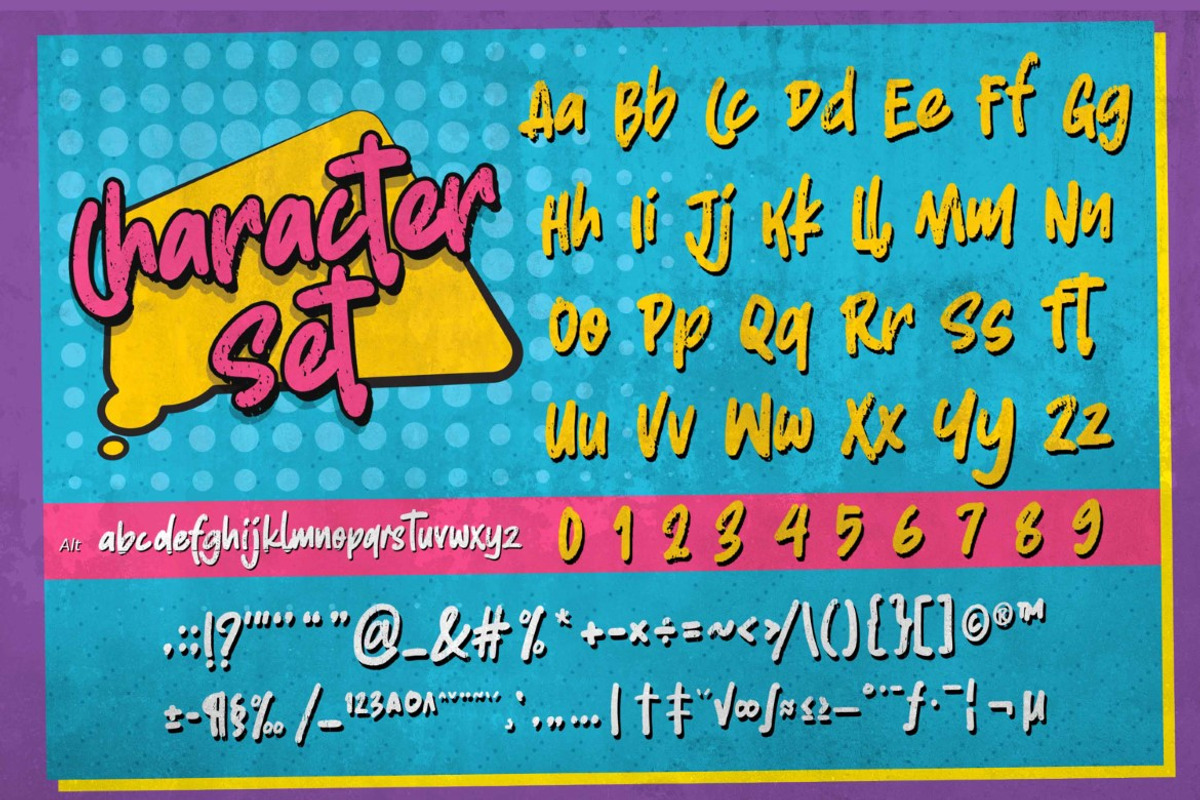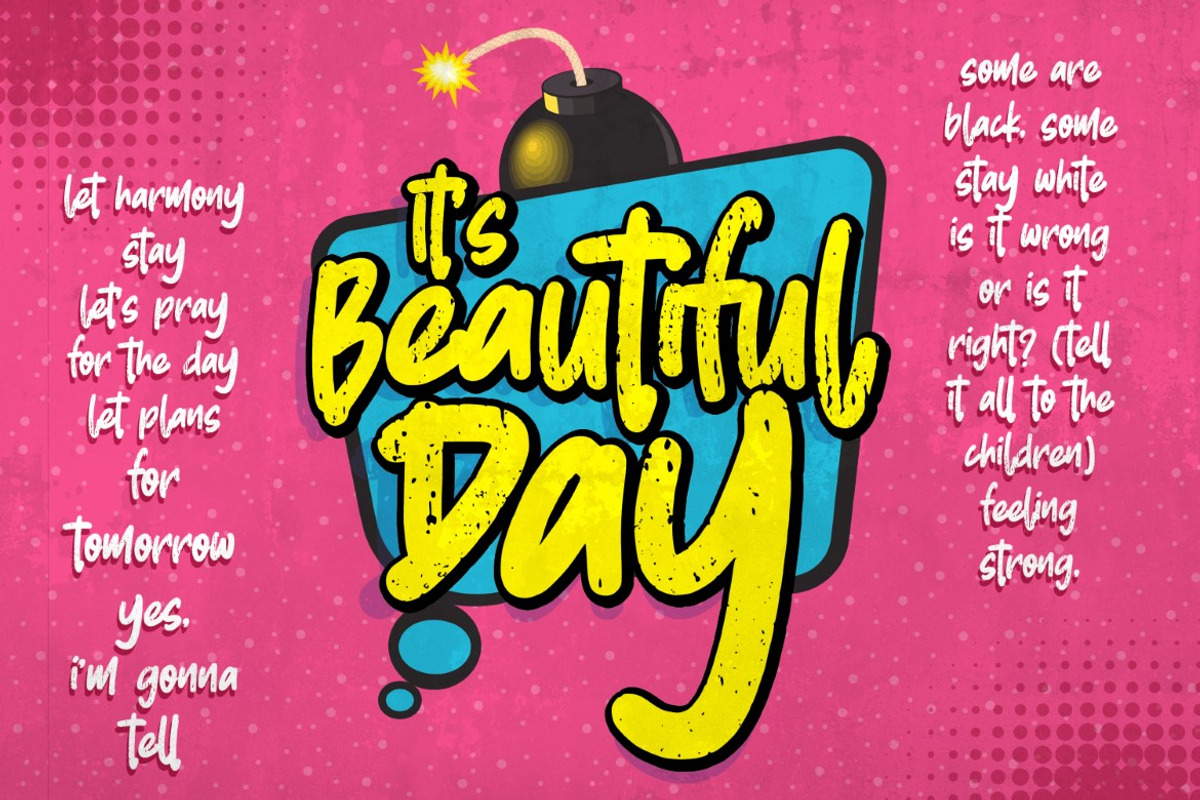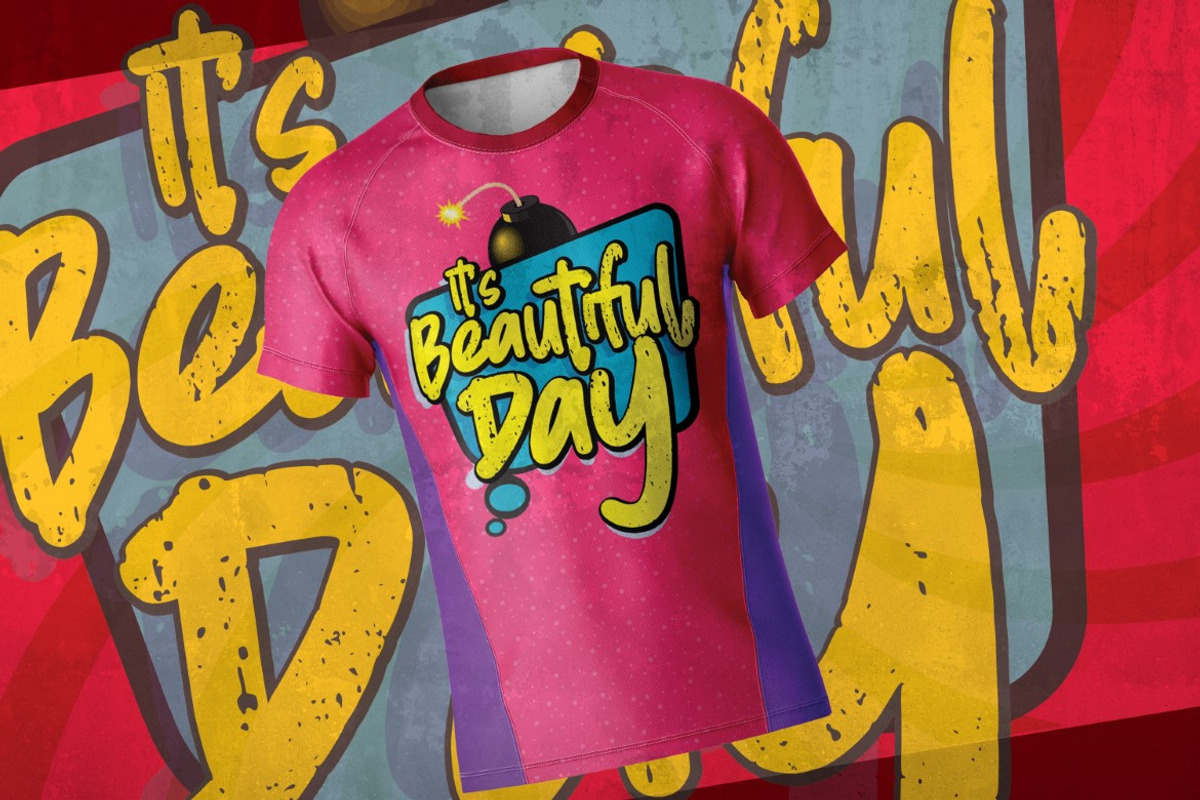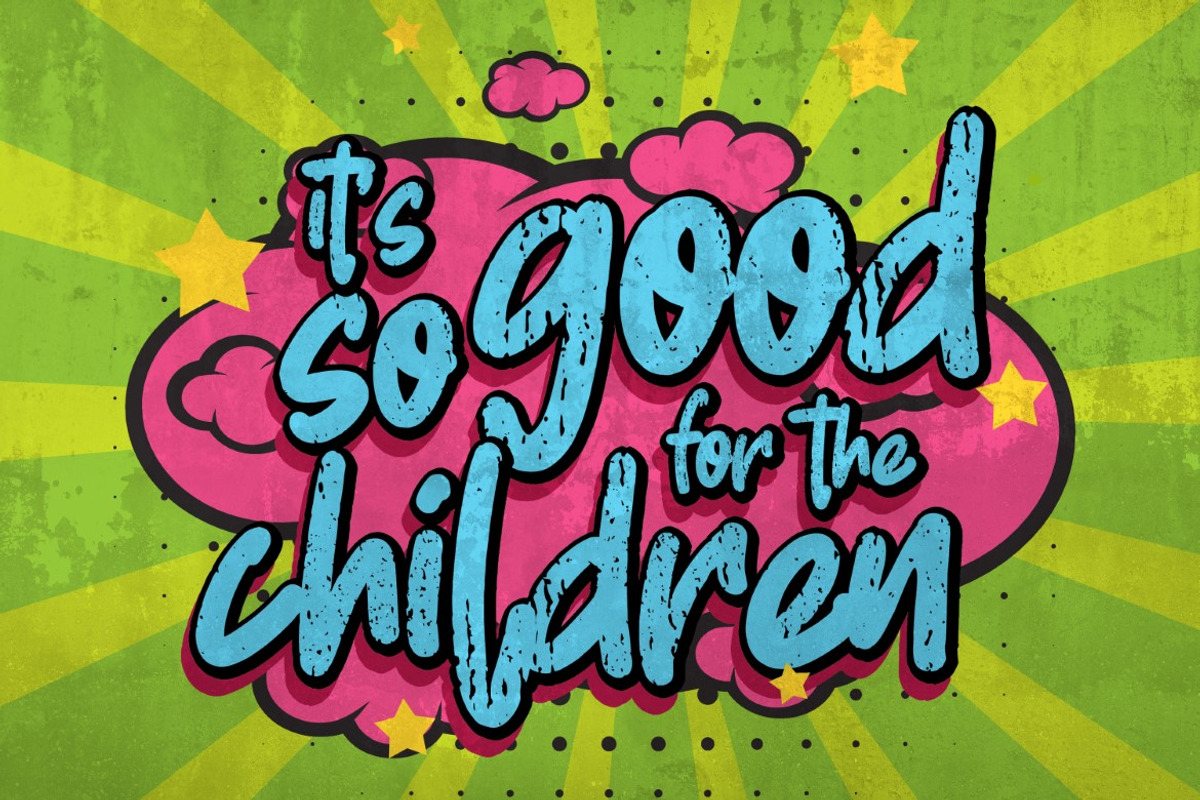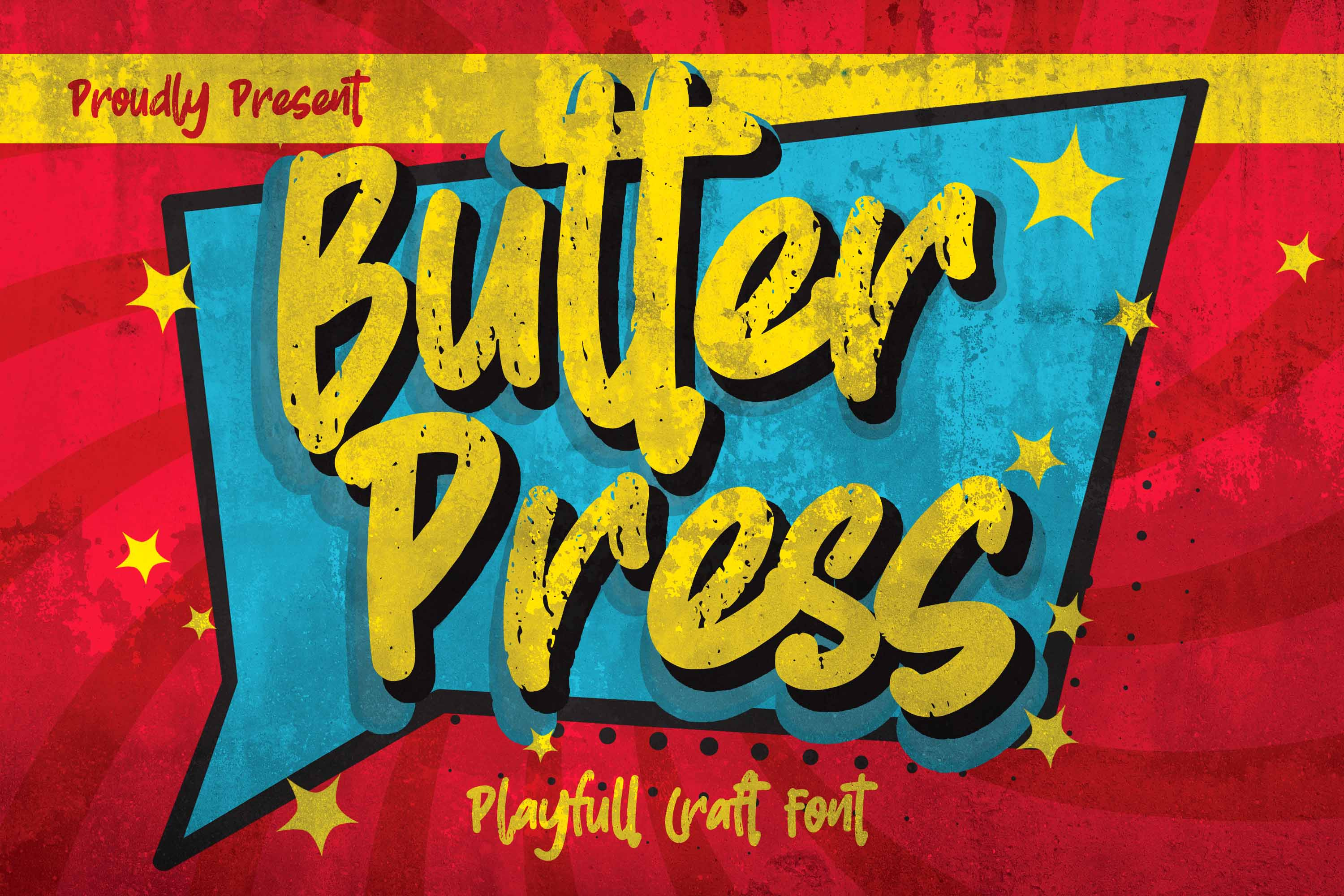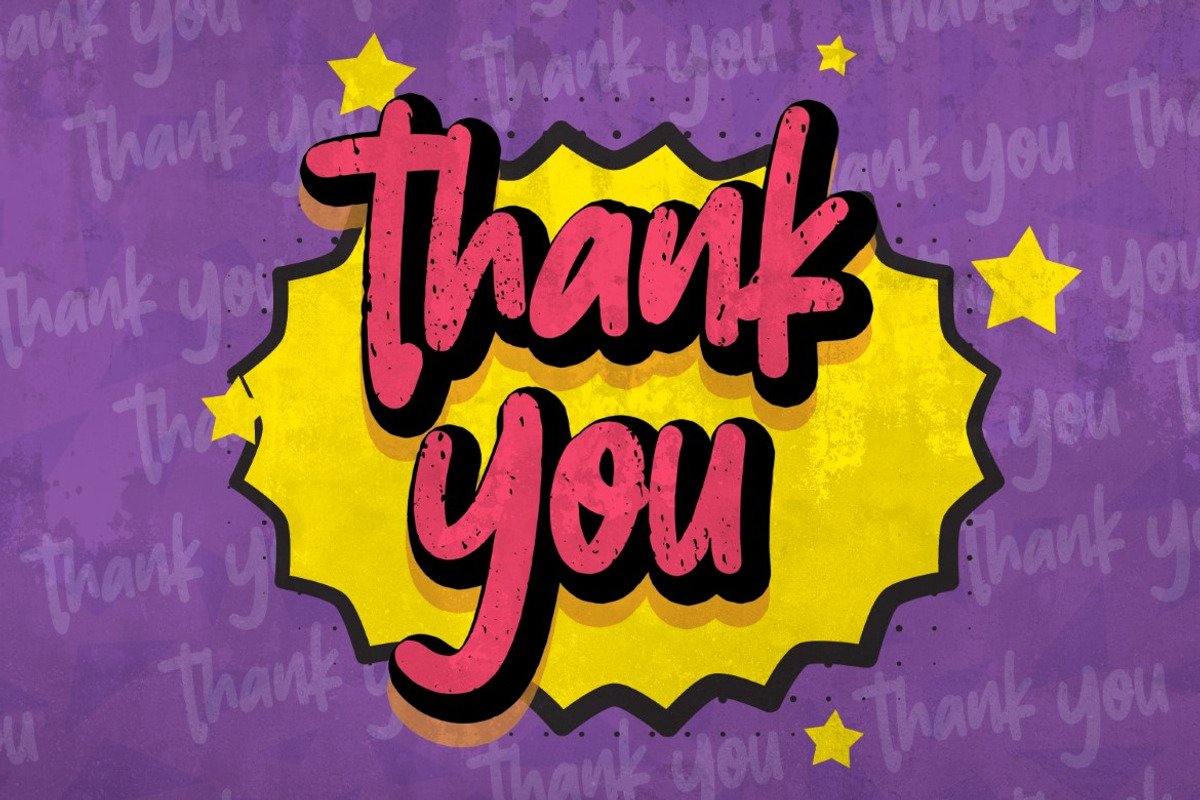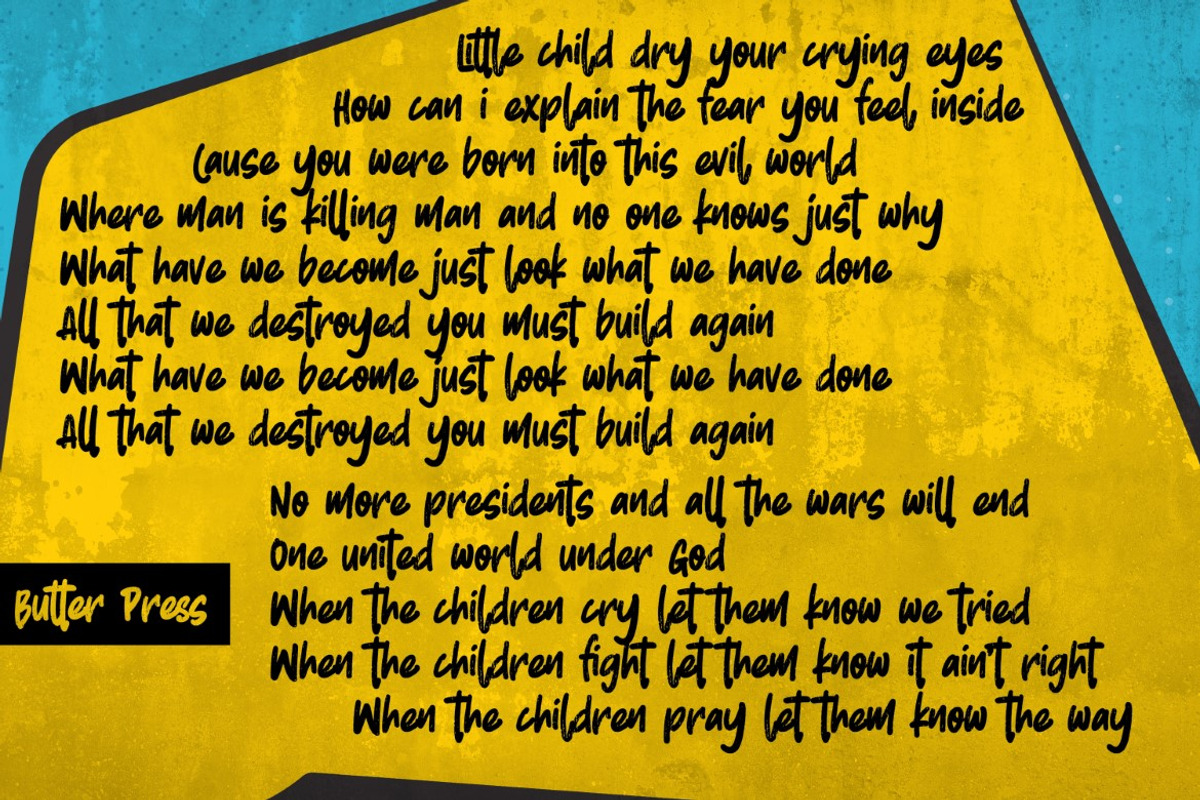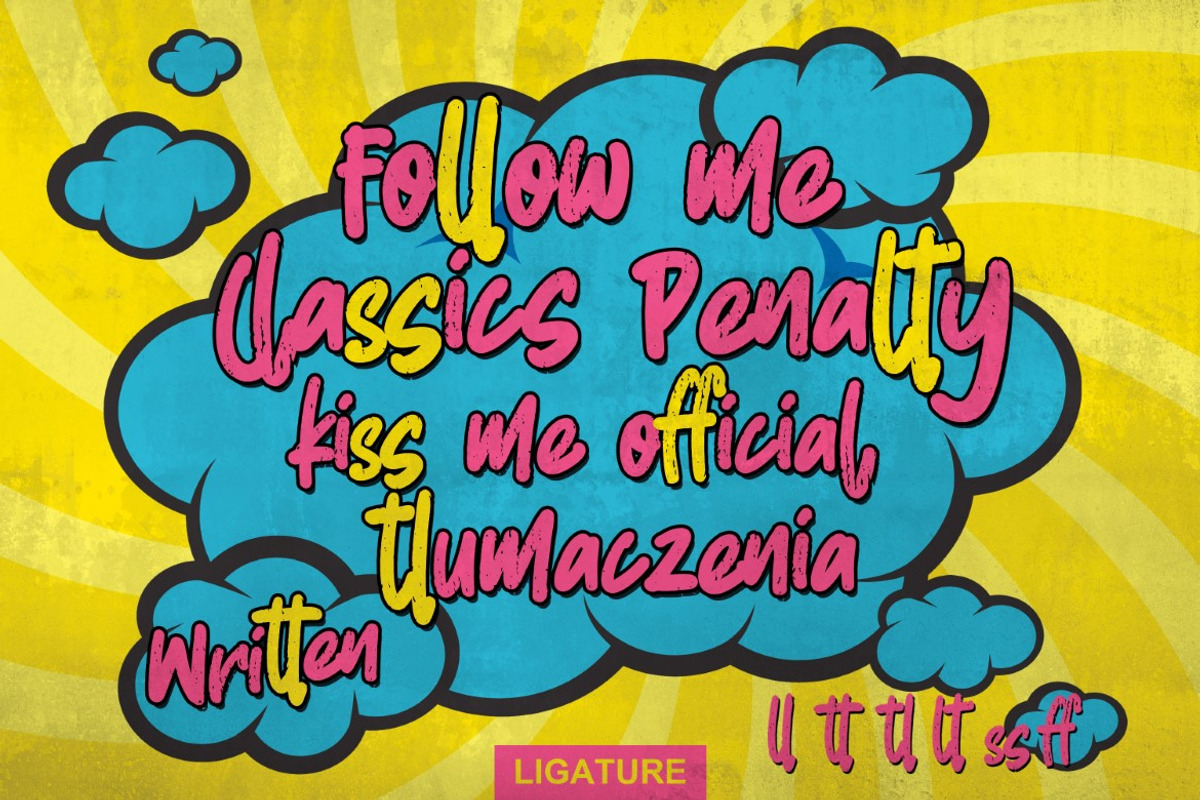
Butter Press - Grungy Cartoon Font
Butter Press - Grungy cartoon font brush Introducing Butter Press. Grungy cartoon font brush that written casually and quickly. Letters are made with brushes on Procreate. Then crafted carefully drawn into a vector format. That is why Butter Press has authentic and relaxed characteristics and a more natural look to your text with a more natural look. You can activate Ligature OpenType panel to make these two styles. It also has many alternatives and ligatures that make your text and design more interesting. Butterpress is perfect for homeware designs, branding projects, Logo design, Quotes product packaging